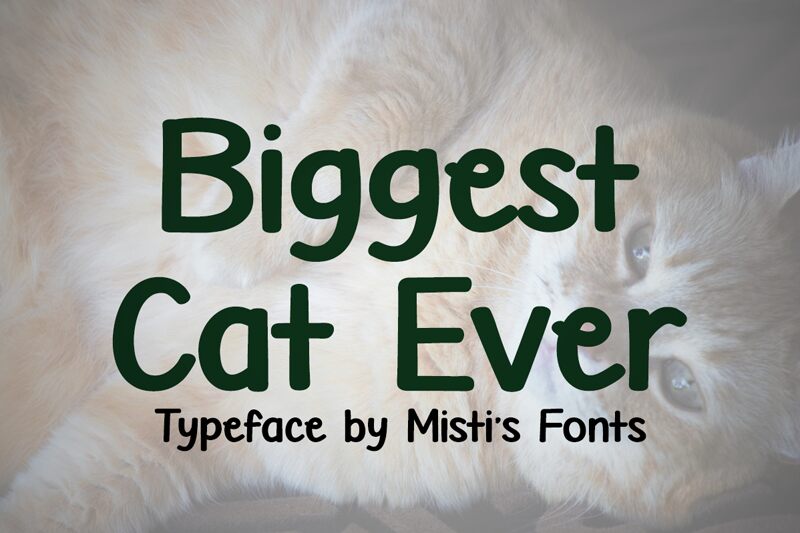
Biggest Cat Ever
Biggest Cat Ever is a bold, playful handwritten font full of personality. With chunky strokes and a fun, casual style, its perfect for eye-catching headlines, logos, posters, and more. Add a dose of charm and confidence to any design!